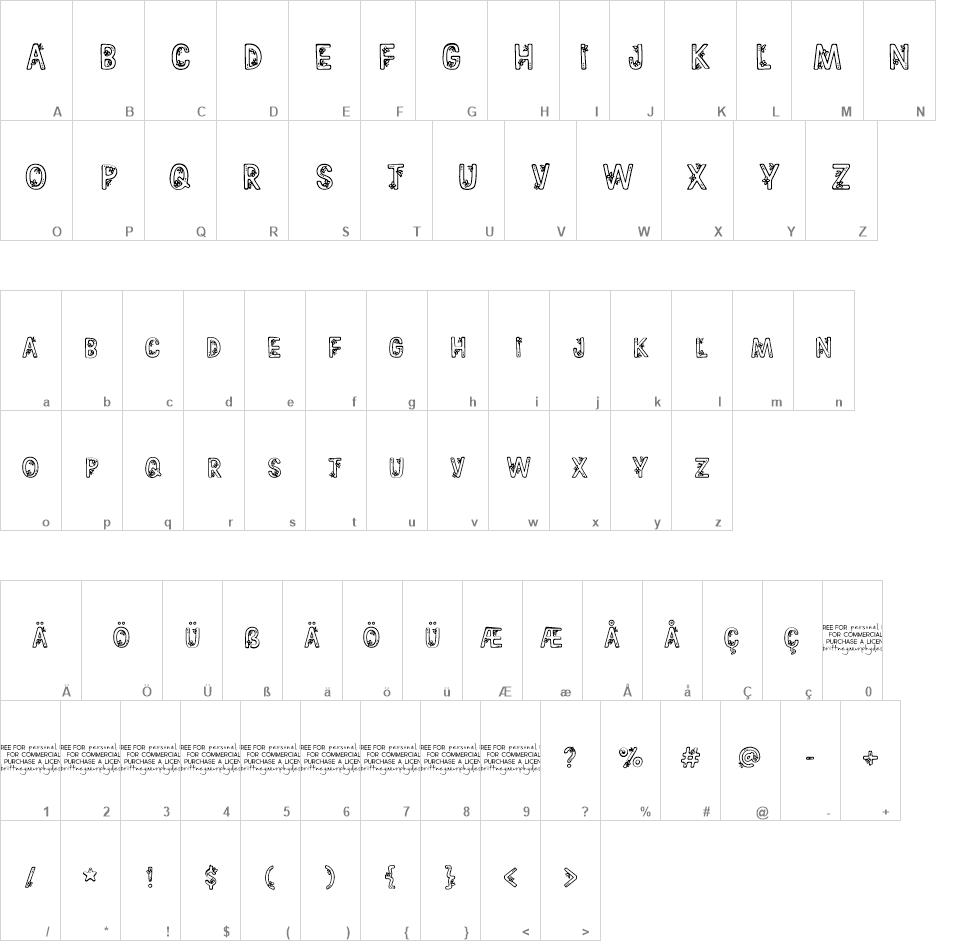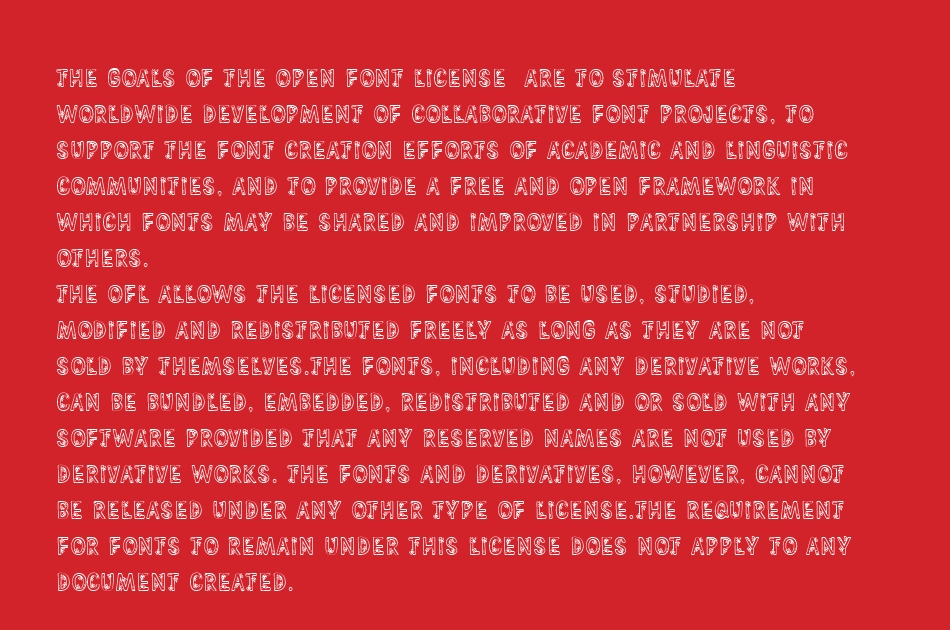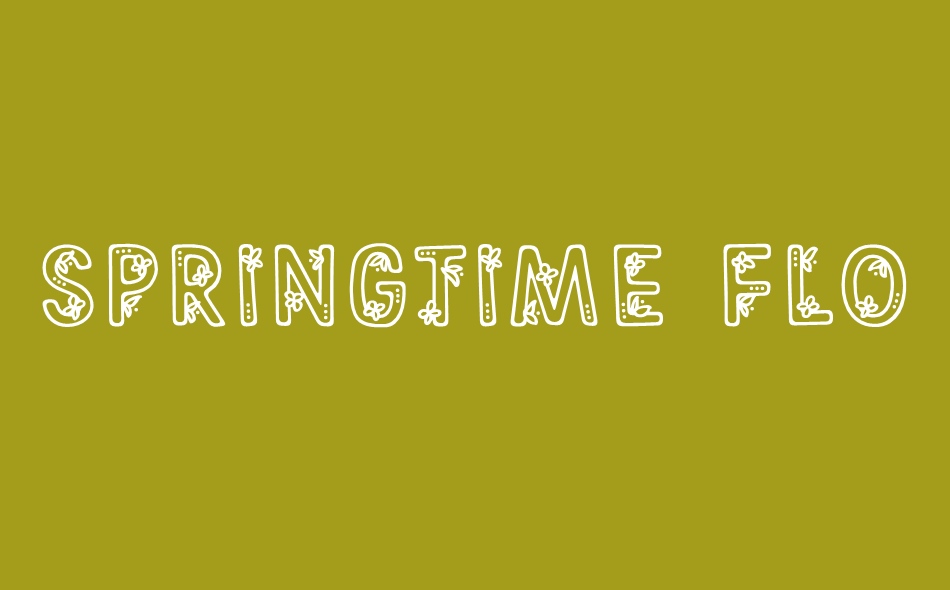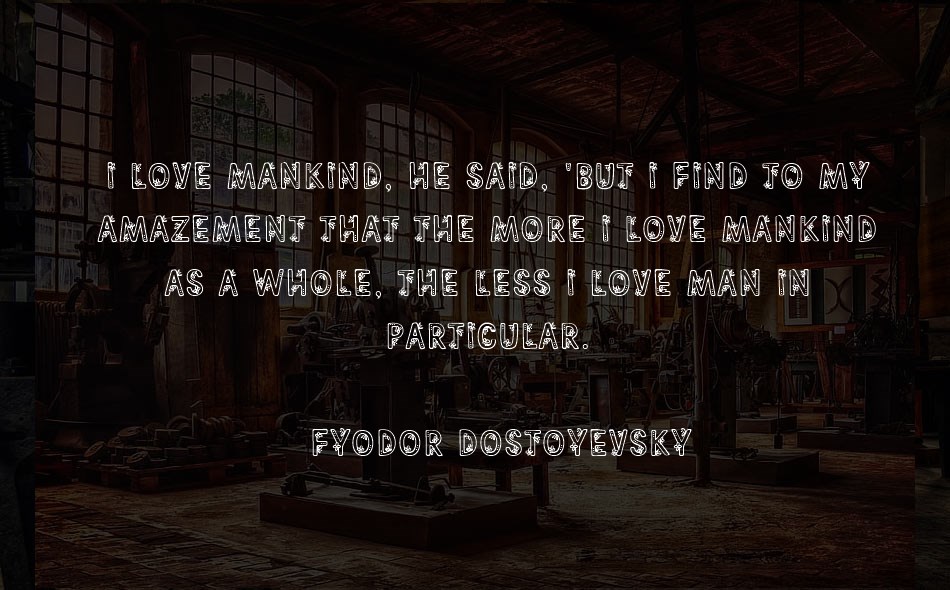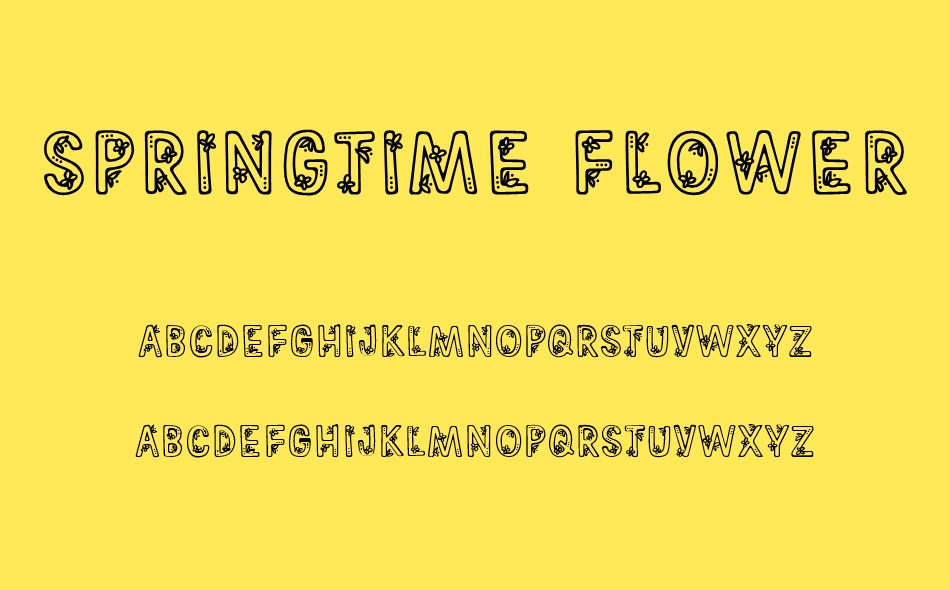
Springtime Flowers font
Springtime Flowers is a sweet floral font perfect for dressing up your spring designs! Use it posters, valentines or even Mother's Day cards!